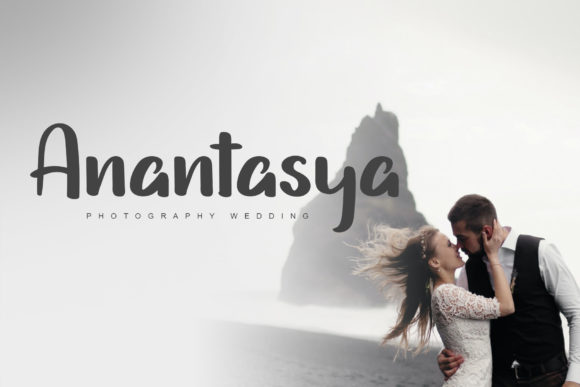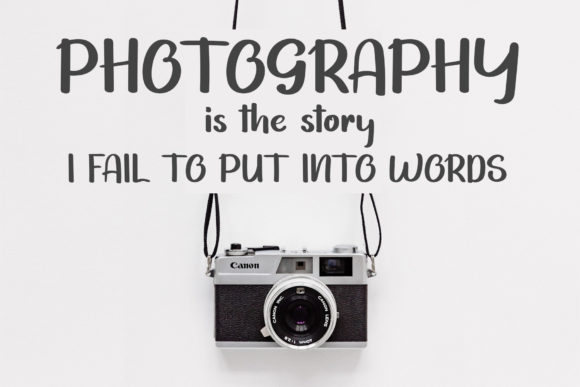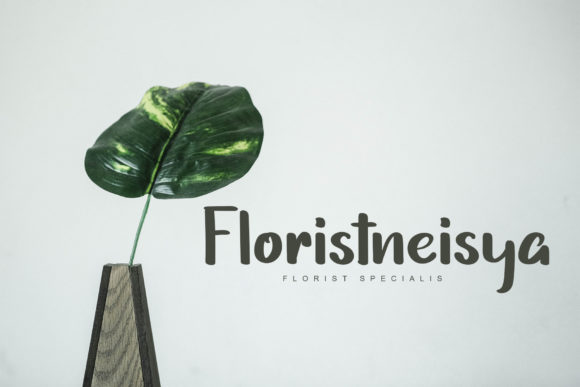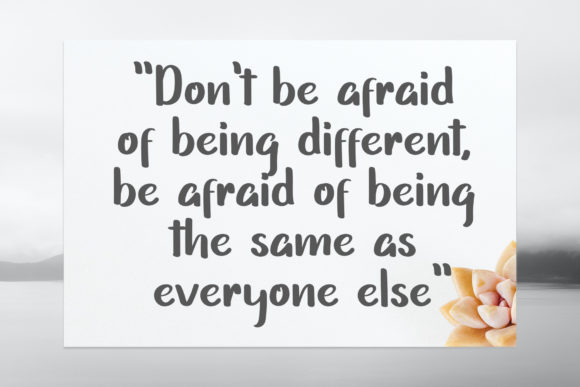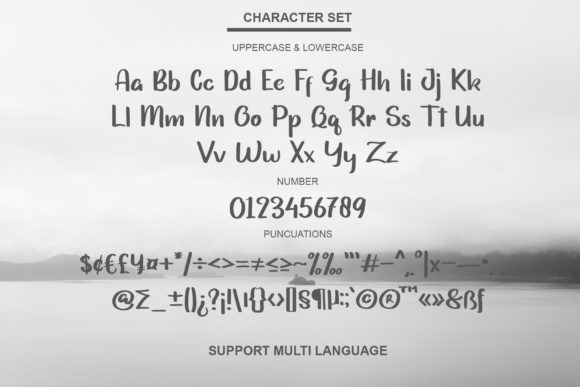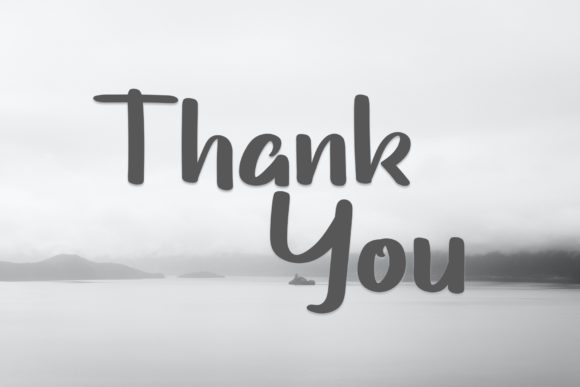
Introduction to Grithani Font
Grithani is a modern display font that is readable, bold and stylish.
It is defined by smooth curves and is perfect for fashion branding or editorial designs Add it confidently to your projects, and you will love the results.
Key Features of Grithani Font